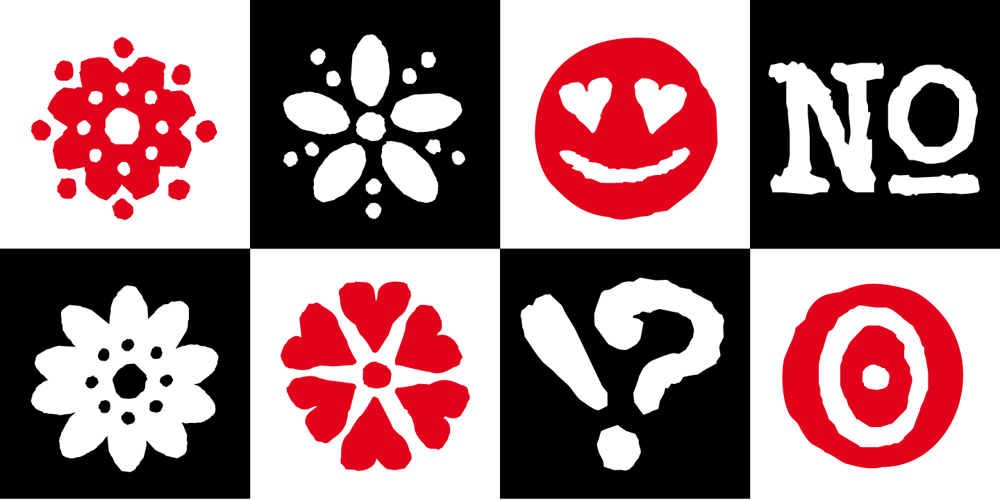
Typewriter 1950 Tech Mono
Typewriter 1950 Tech Mono font
Typewriter 1950 Tech Mono Font Family was designed by Manuel Viergutz and published by TypoGraphicDesign. Typewriter 1950 Tech Mono contains 13 styles and family package options. The typeface Typewriter 1950 Tech Mono is designed for the Typo Graphic Design font foundry in 2017 by Manuel Viergutz. A display slab serif type for headlines. Based on an old typewriter machine from 1950. Plus state-of-the-art OpenType-features like contextual alternates (calt), decorative ligatures e. g. type the word “LOVE” for ❤ and the word “SMILE” for ☺ and Versal Eszett (German Capital Sharp S). For use in magazines, posters, headlines and advertisement, plus as webfont for decorative headlines. Character Set: Latin Extended (Adobe Latin 3). 1490 glyphs with 5× A–Z, 5× a–z, 5× 0–9 and 290+ extra icons like arrows, dingbats, symbols, geomatric shapes, catchwords and many alternative letters. Have fun with this font & use the DEMO-FONT (with reduced glyph-set) FOR FREE! How To Use – OpenType-Features ■ In Adobe Photoshop and Adobe InDesign, font feature controls are within the Character panel sub-menu → OpenType → Discretionary Ligatures … Checked features are applied/on. Unchecked features are off. ■ In Adobe Illustrator, font feature controls are within the OpenType panel. Icons at the bottom of the panel are button controls. Darker ‘pressed’ buttons are applied/on. ■ Additionally in Adobe InDesign and Adobe Illustrator, alternate glyphs can manually be inserted into a text frame by using the glyphs panel. The panel can be opened by selecting Window from the menu bar → Type → Glyphs. Or use sign-overview of your operating system. ■ For a overview of OpenType-Feature compatibility for common applications, follow the myfonts-help http://www.myfonts.com/help/#looks-different ■ Font Name: Typewriter 1950 Tech Mono ■ Font Weights: Regu­lar + Negative + Black + Mono + Icons + DEMO (with redu­ced glyph-set) ■ Font Cate­gory: Slab Serif Dis­play for Head­line Size ■ Font For­mat: .otf (Open­Type Font for Mac + Win) + .ttf (True­Type Font) ■ Glyph Set: 1490 glyphs ■ Lan­guage Sup­port: 28+ for Latin Exten­ded (Adobe Latin 3). Afri­kaans, Alba­nian, Cata­lan, Croa­tian, Czech, Danish, Dutch, English, Esto­nian, Fin­nish, French, Ger­man, Hun­ga­rian, Ice­lan­dic, Ita­lian, Lat­vian, Lithua­nian, Mal­tese, Nor­we­gian, Polish, Por­tu­gese, Roma­nian, Slovak, Slove­nian, Spa­nisch, Swe­dish, Tur­kish, Zulu ■ Spe­cials: 290+ deco­ra­tive extras like icons for arrows, ding­bats, emo­jis, sym­bols, geo­me­tric shapes, catch­words + Ger­man Capi­tal Eszett. ■ Open Type Fea­tures: Kerning (kern), Sty­listic Set 1 (ss01) … Sty­listic Set 6 (ss06), Ornaments (ornm), Titling (titl), Loca­li­zed Forms (locl), Sub­script (subs) Super­script (sups), Ordi­nals (ordn), Old­style Figu­res (onum), Lining Figu­res (lnum), Frac­tions (frac), Deno­mi­na­tors (dnom), Nume­ra­tors (numr), Stan­dard Liga­tures (liga), Con­text­ual Alter­na­tes (calt) e. g. Sty­listic Set-Loop and Deco­ra­tive Liga­tures (dlig) e. g. type the word “LOVE” for ❤ or “SMILE” for ☺ ■ Design Date: 2017–2018 ■ Type Desi­gner: Manuel Vier­gutz